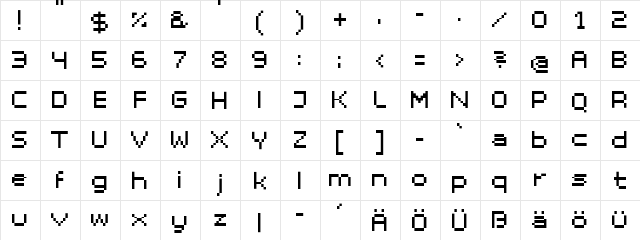
Superhelio Regular
Regular · Superlooper  ·
Foundry Superlooper
Design Context for Superhelio Typeface
Superhelio takes a measured approach to typography — its balanced proportions and neutral character make it a reliable workhorse for both digital and print work.